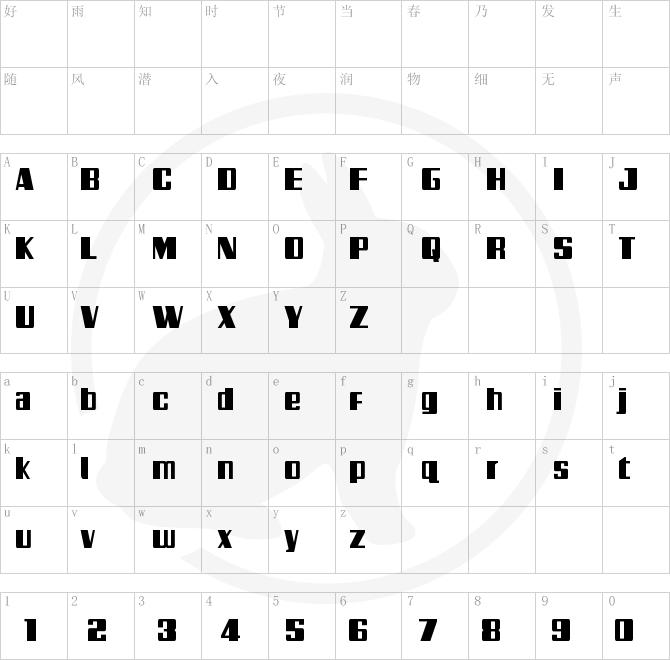
- Font Name:Galactic Storm Condensed
Galactic-Storm-Condensed.ttf is a very beautiful artistic font, Galactic-Storm-Condensed.ttf is widely used in the design and printing of various books and pictures,Galactic-Storm-Condensed.ttf has a strong visual impact,Galactic-Storm-Condensed.ttf is a commonly used font in newspapers, magazines and books, and is used in posters, e-commerce Poster design, store design, logo design, font design and other fields.Galactic-Storm-Condensed.